Fonts finally have a special spot in Windows 11 and Windows 10 Settings. I have been using Windows for years, and Fonts have been one of my favorite features to fiddle around with when using themes. We all love to have our own favorite font everywhere on Windows, and now with Windows 11/10, Microsoft has made it easier.
Windows 11 Font Settings
Right-click the Windows button on the Taskbar and select Settings from the list of options. Alternatively, you can press Win+I in combination to go to the settings directly.
Select Personalization settings from the side panel on the left.
Move to the right-pane and click the Fonts tile to expand it.
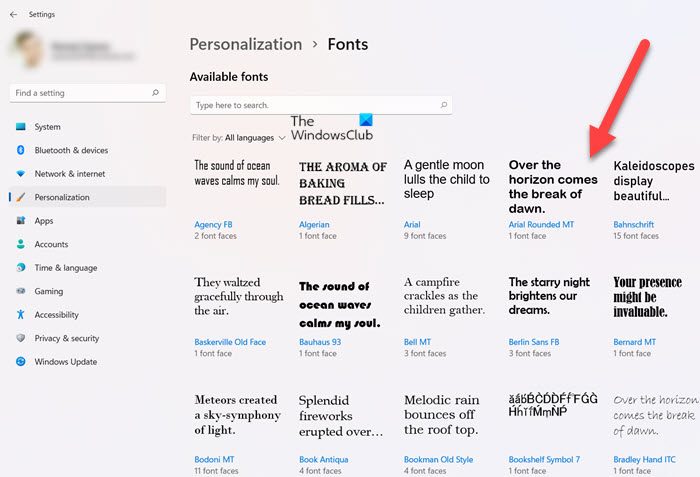
When directed to a new screen, you’ll see a list of fonts under the list of the available fonts.
You can use the search bar below it to search fonts by name or sort them by language.
When done, you can change the size, and see a live preview of each font face.
Windows 10 Fonts Settings
Open Settings > Personalization > Fonts. This is the new home for Fonts which lets you see all the fonts, how they look, and you can even manipulate them. When you are here, you will see:
- A list of available fonts on your PC with information on the number of fonts faces for each of them.
- Search bar which lets you search fonts by name.
- Option to Sort by languages.
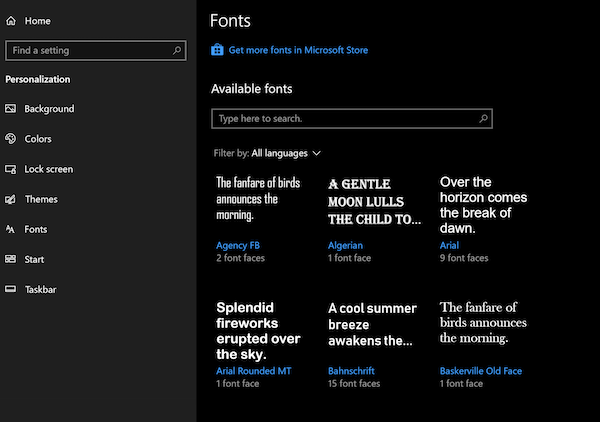
To see more details, tap on any of the fonts. I would suggest selecting one with at least two font faces. Here you can:
- Change the size, and see a live preview of each font faces.
- Scroll a little, and you can choose the Font Face type you want to have on your PC.
- An uninstall button tells you exactly what it can do.
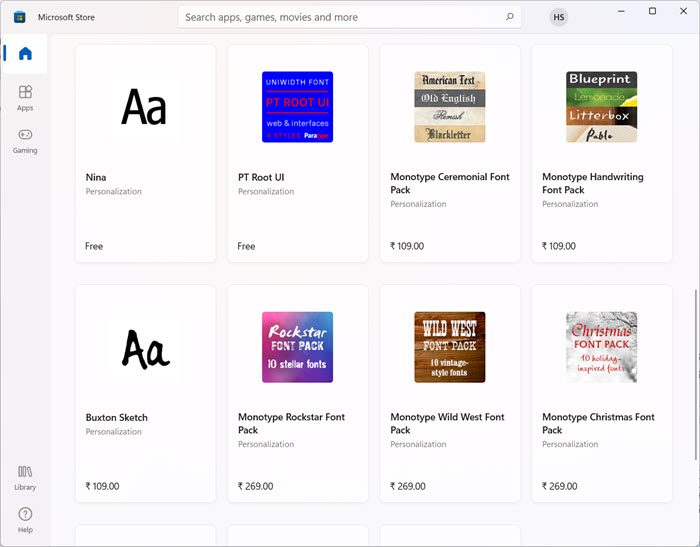
How to apply Fonts to Windows PC
Should I use Calibri or Arial?
Calibri is a modern sans serif family with subtle roundings on stems and corners. It features real italics, small caps, and multiple numeral sets. Arial, on the other hand, contains more humanist characteristics. Both Arial and Calibri are good to use, beautiful and elegant, but Arial appears to be a little more artistic than Calibri. If your job craves creativity, then Arial is the best bet.
What are the default Windows fonts?
Calibri has been the default font for all things Microsoft since 2007 when it stepped in to replace Times New Roman across Microsoft Office. However, you can change it to the font of your liking through Windows Personalization settings.